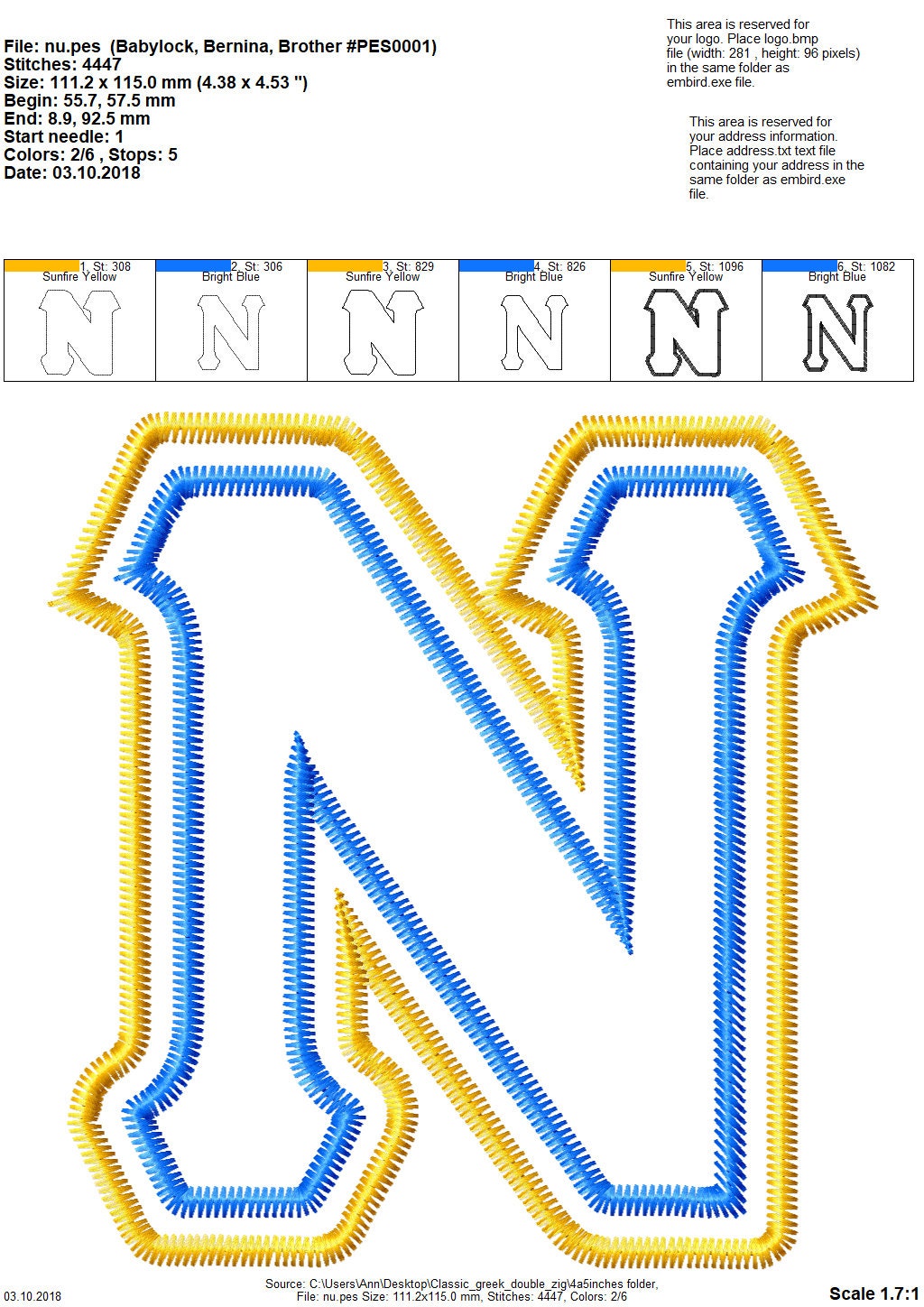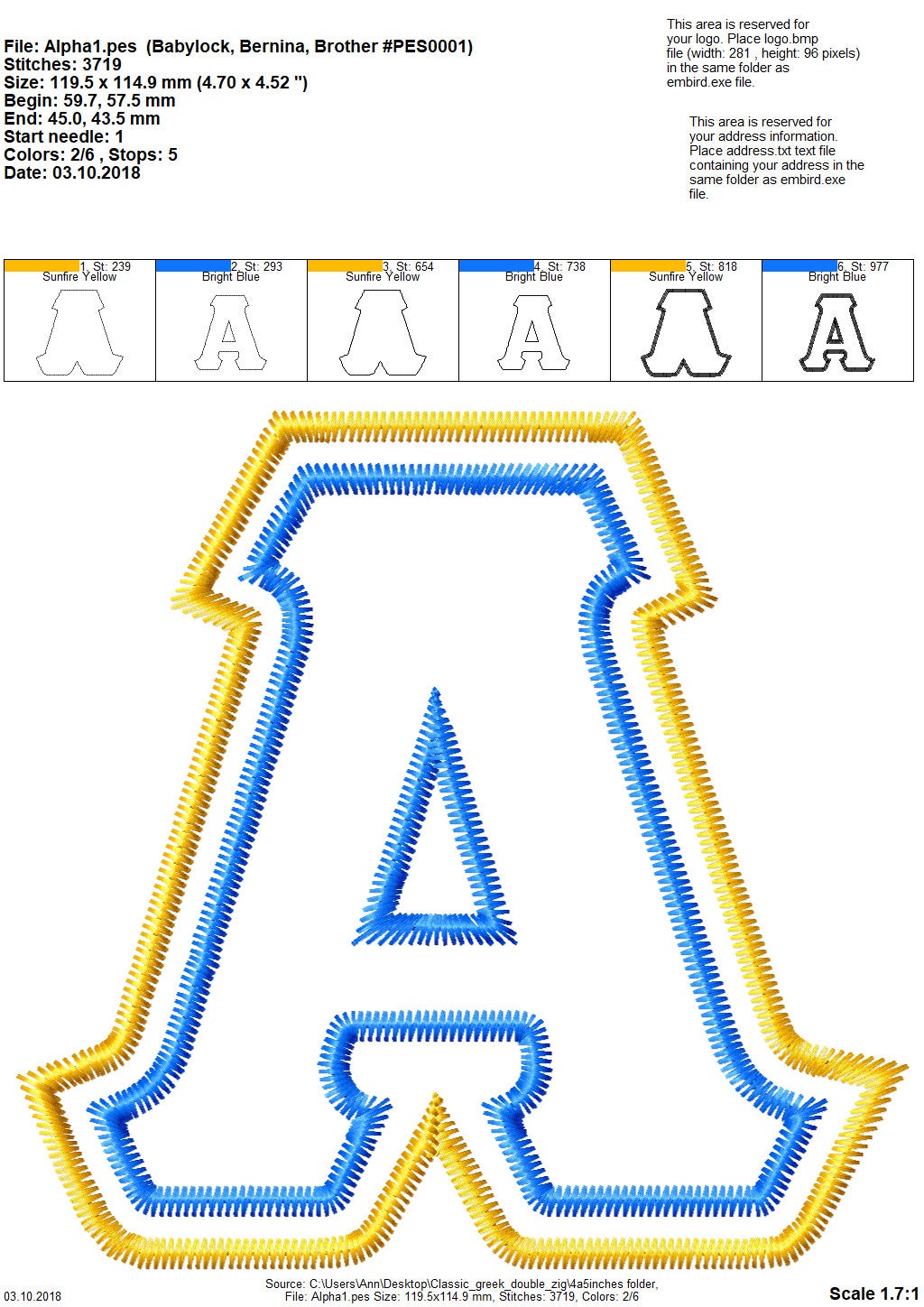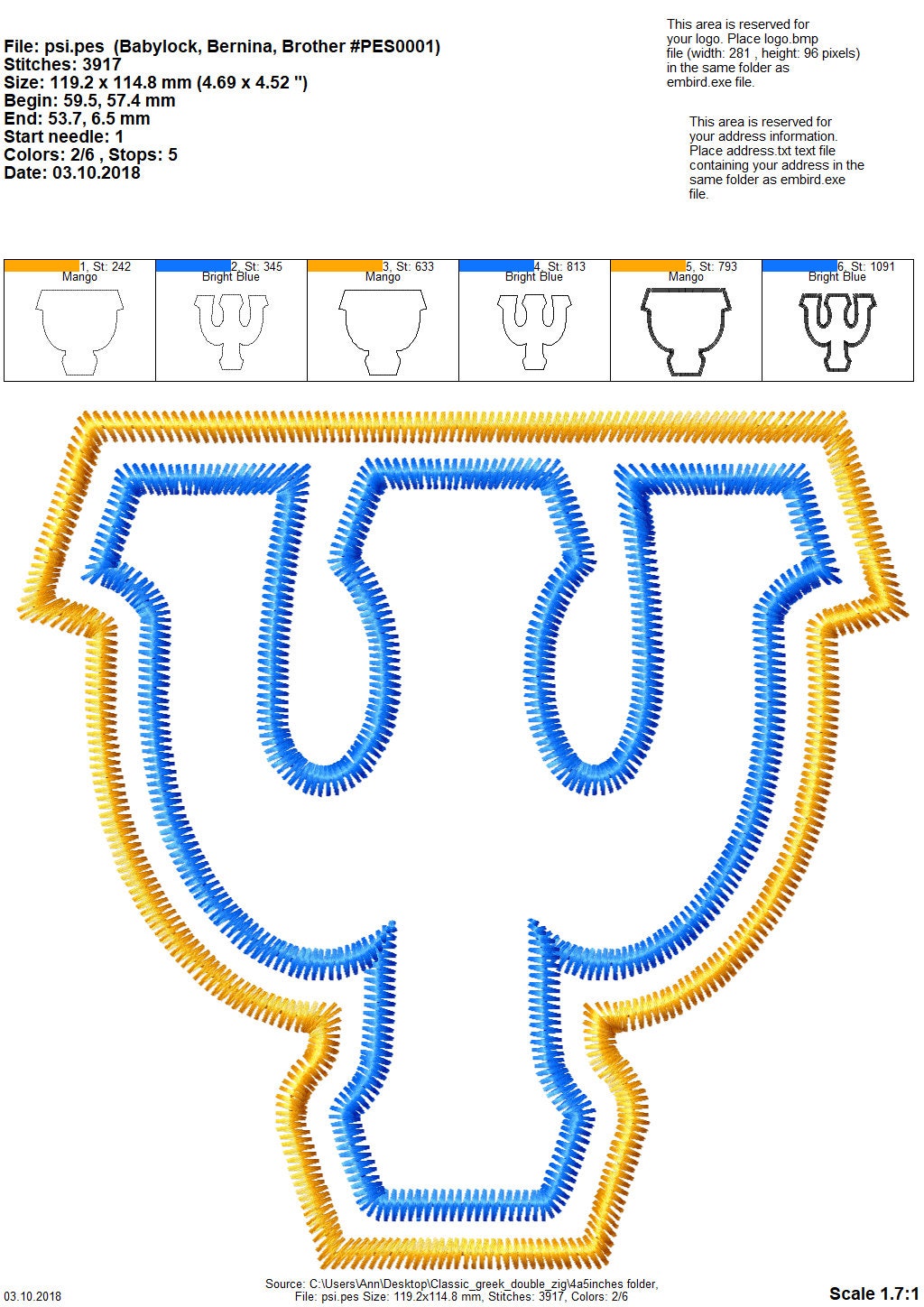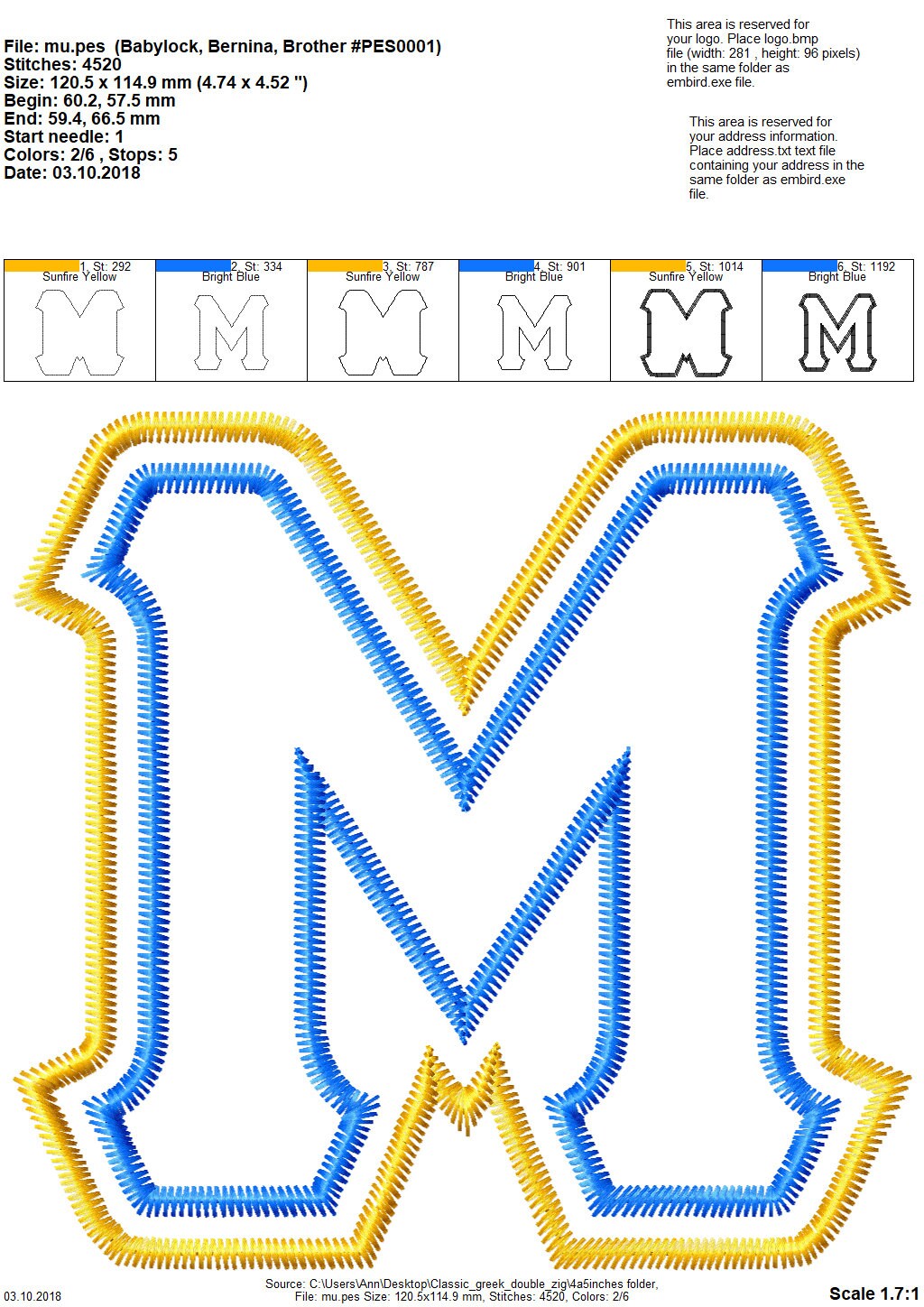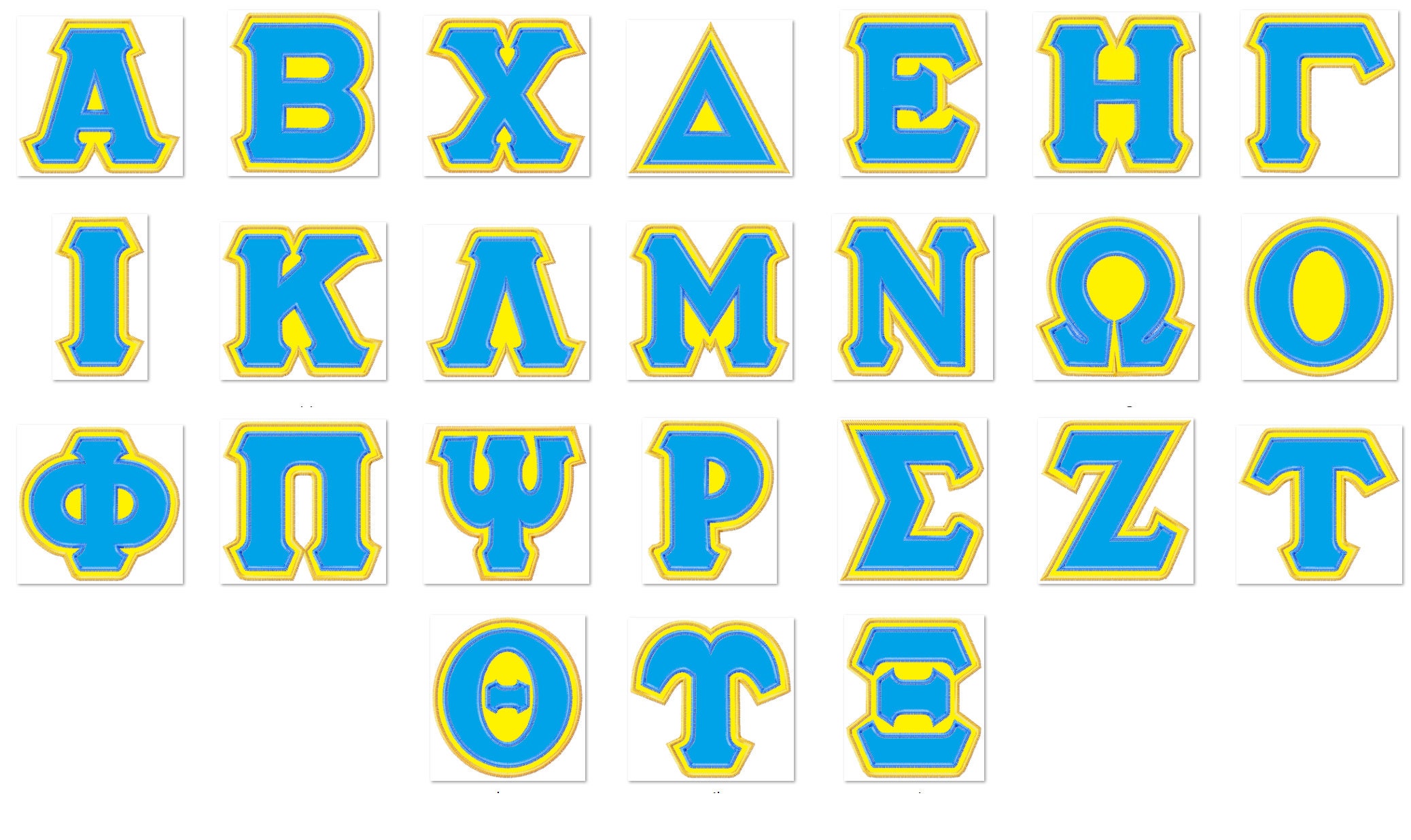
GREEK FONT appliqué 2 layers applique, 2 colors Greek alphabet font ABC theta alpha omega kappa applique monogram machine embroidery designs
This listing is for whole Greek font/alphabet
Letters are 2 step applique with ZIG-ZAG applique finish
These letters stitched out fine. I do have a couple of suggestions, though. It would be helpful to have a stop in between the outline step to place the applique fabric, the tack down step to be able to trim the fabric, and then the final satin stitch step. Also it would be great if the final satin stitch was a bit fuller to give the letters a polished appearance.